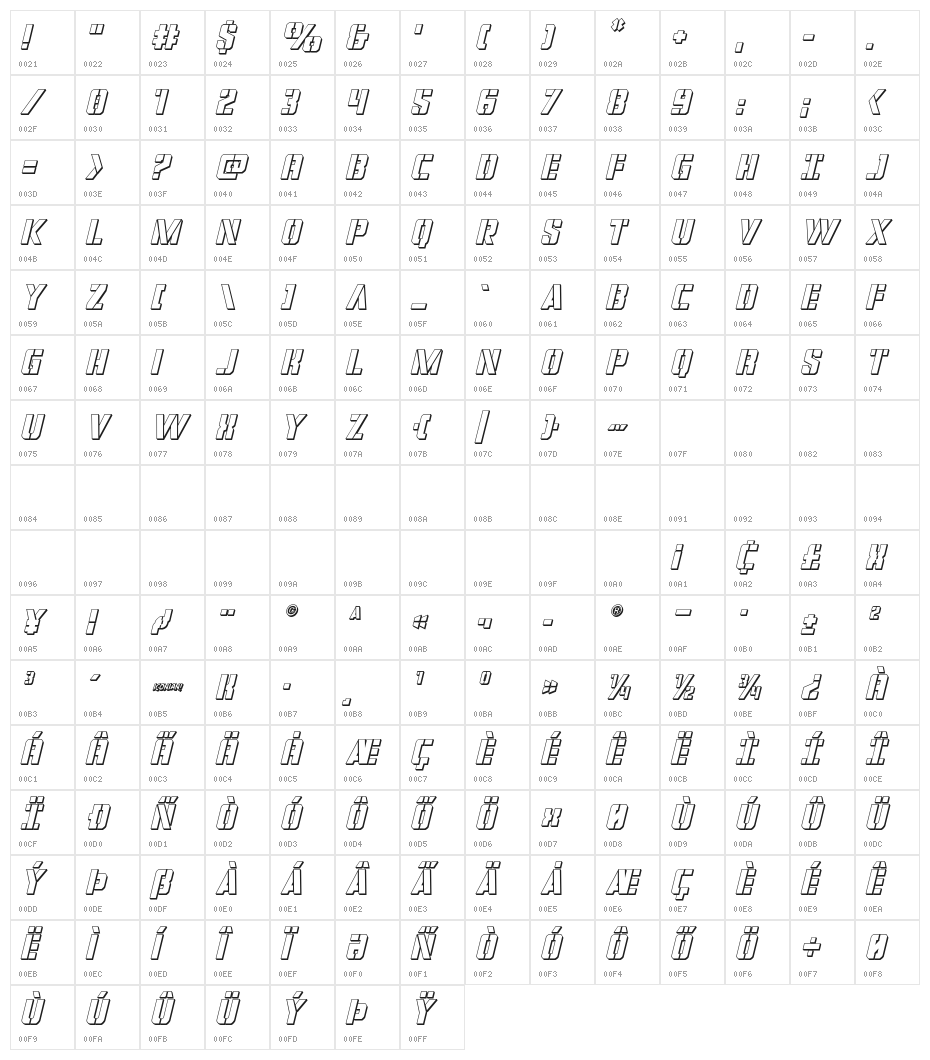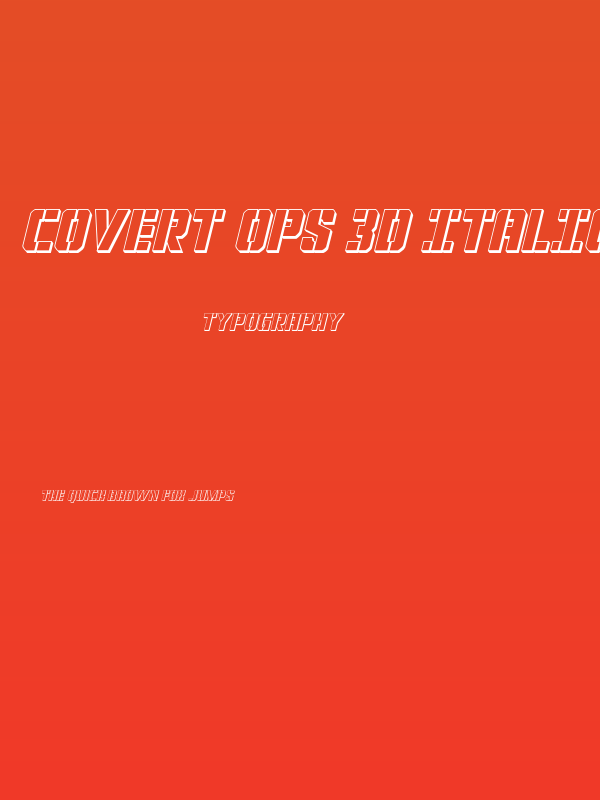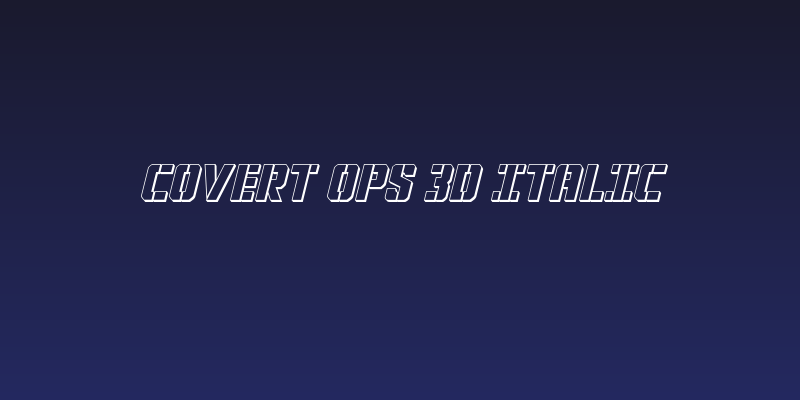
Covert Ops 3D Italic Font
Covert Ops 3D Italic Description
This font features a bold, three-dimensional design with an italic slant, giving it a dynamic and futuristic appearance. The characters are outlined with a strong black border, enhancing the 3D effect and making each letter stand out prominently. The angular and geometric shapes of the letters contribute to a modern and edgy aesthetic, suitable for attention-grabbing headlines or creative projects. The consistent slant across all characters adds a sense of motion and urgency, making it ideal for themes related to speed or technology. The font includes a full set of uppercase letters, numbers, and a variety of special characters, ensuring versatility in design applications.
| Proposed Projects | Ideal for video game titles, tech-themed posters, or branding for innovative products. |